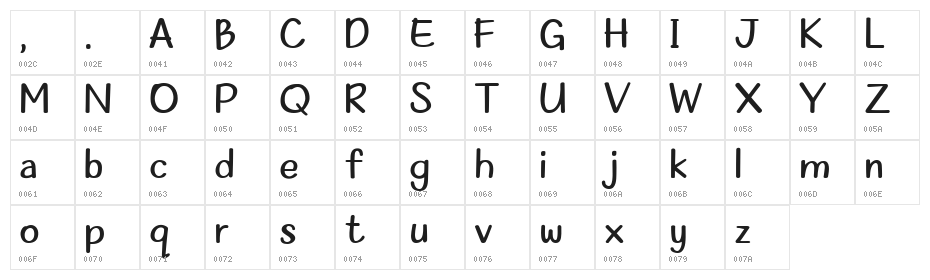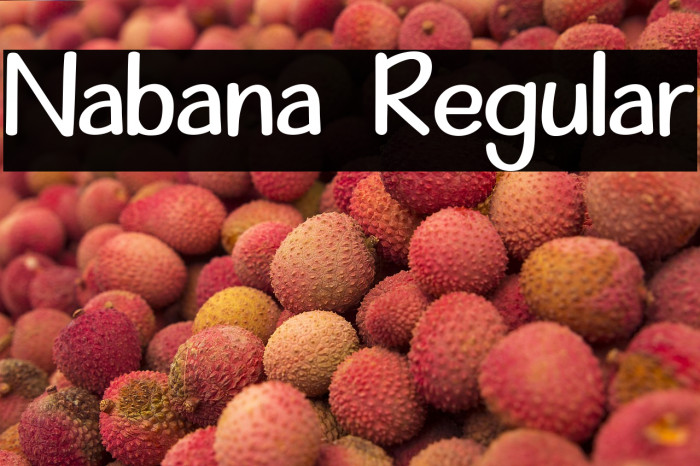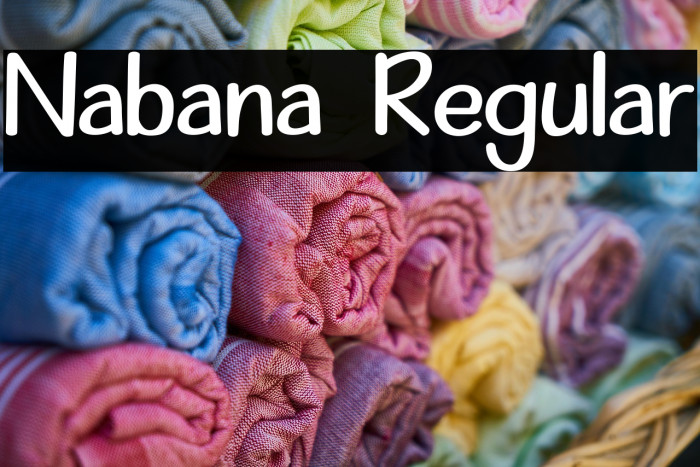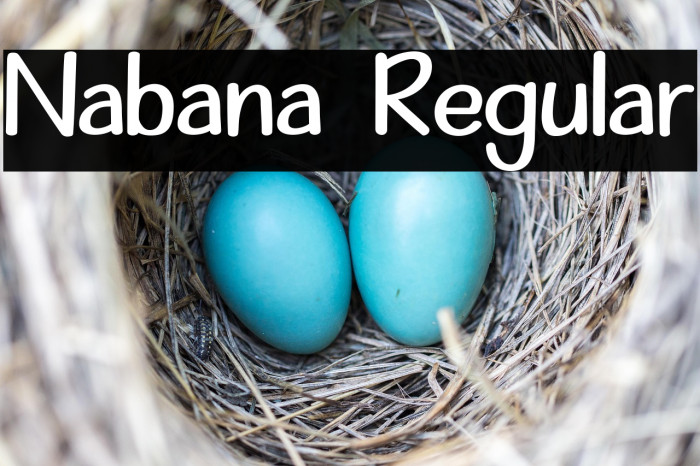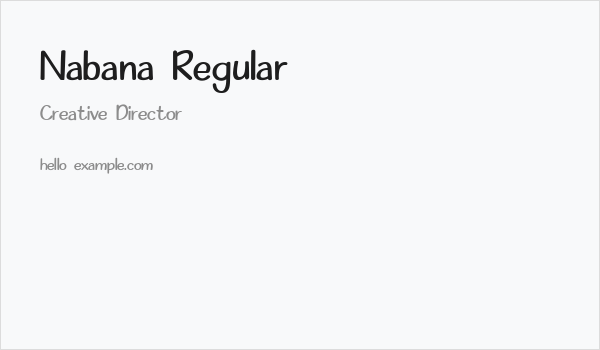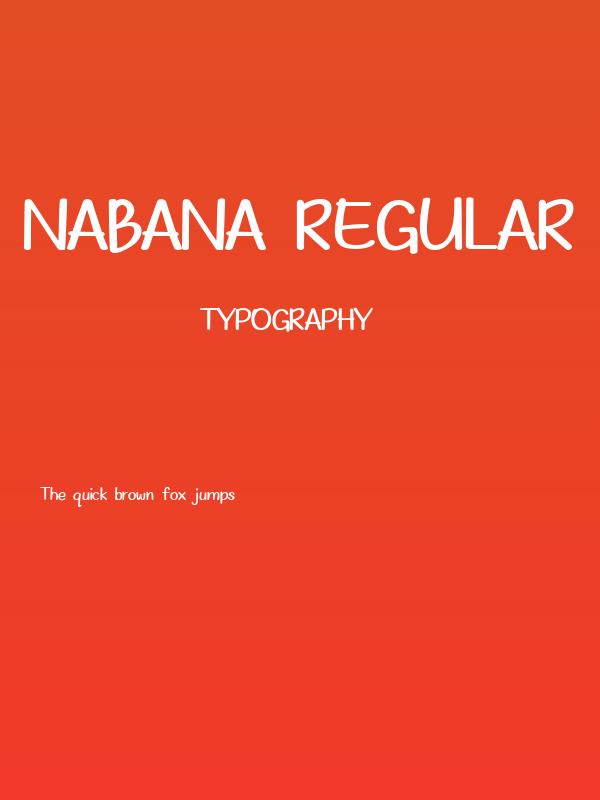
Nabana Regular Font
Nabana Regular Description
This font features a playful and casual handwritten style, characterized by its smooth, rounded strokes and slightly irregular letterforms. The uppercase letters maintain a consistent height, while the lowercase letters exhibit a charming, informal appearance with some letters extending slightly below the baseline. The overall design is approachable and friendly, making it ideal for projects that require a personal touch. The spacing between characters is balanced, ensuring readability while maintaining the font's whimsical nature. Its versatility allows it to be used in a variety of contexts, from children's books to creative branding projects.
| Proposed Projects | Ideal for children's books, greeting cards, creative branding, and informal invitations. |